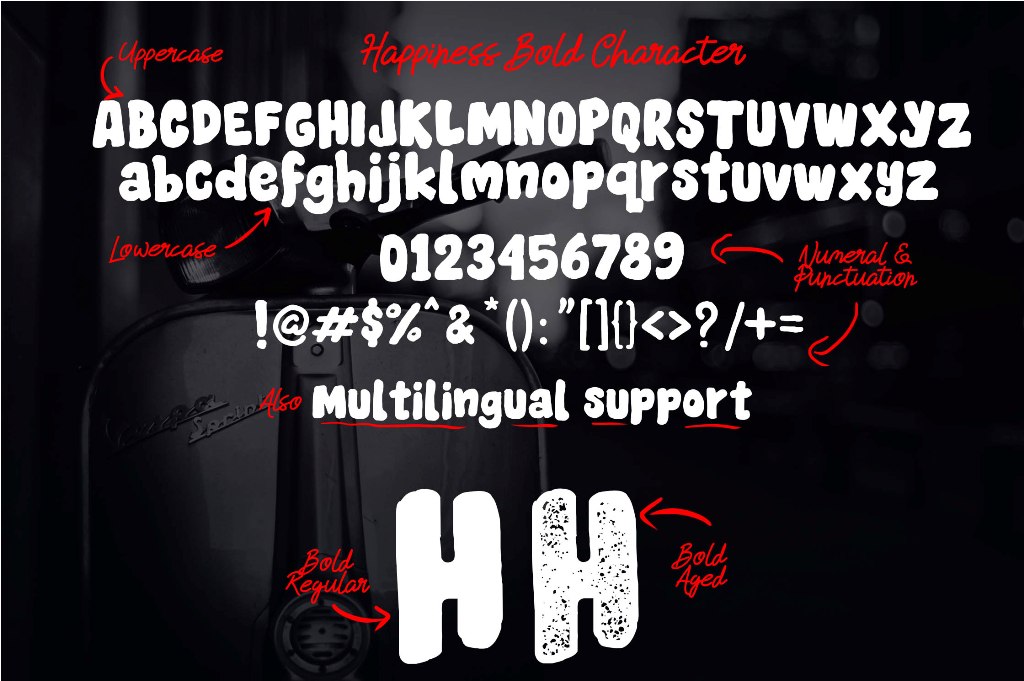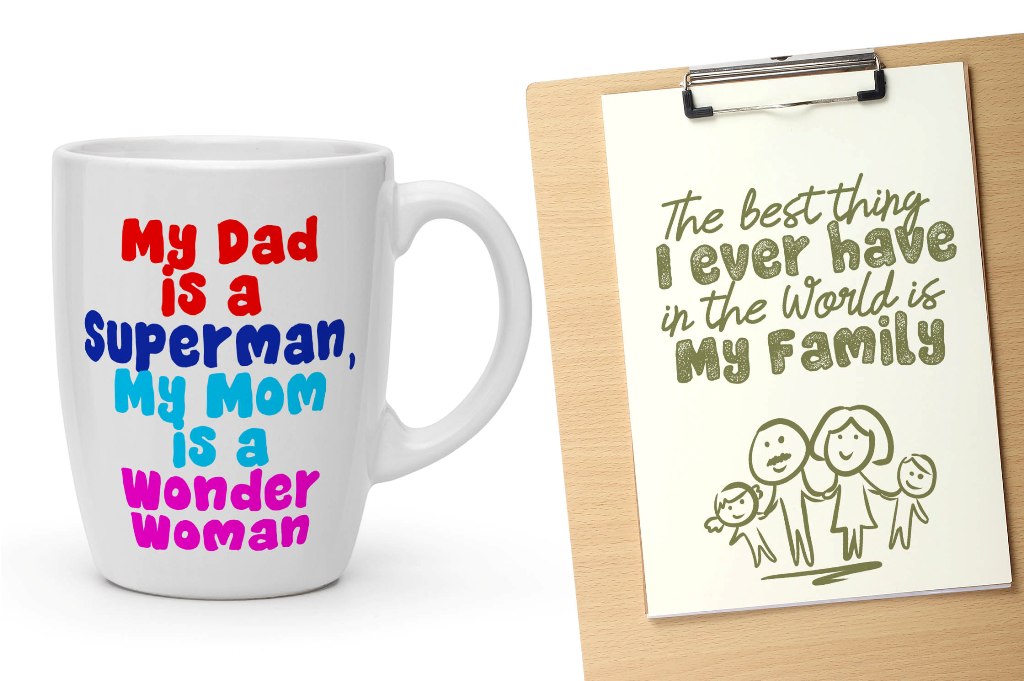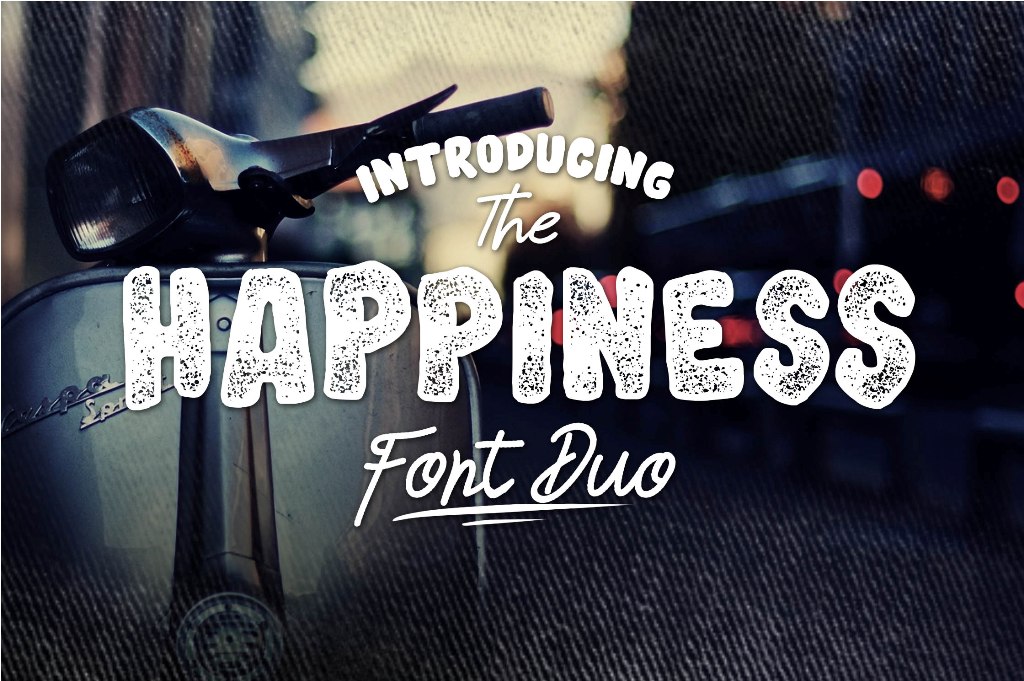
Happiness Font Duo
The Happiness Font Duo is a fun vintage typeface. The font comes with BOLD and SCRIPT . Very cool for branding, poster, logo, and any other artworks.
| Classification: | Decorative Fonts, Display Fonts, Handwritten Fonts, Retro / Vintage Fonts |